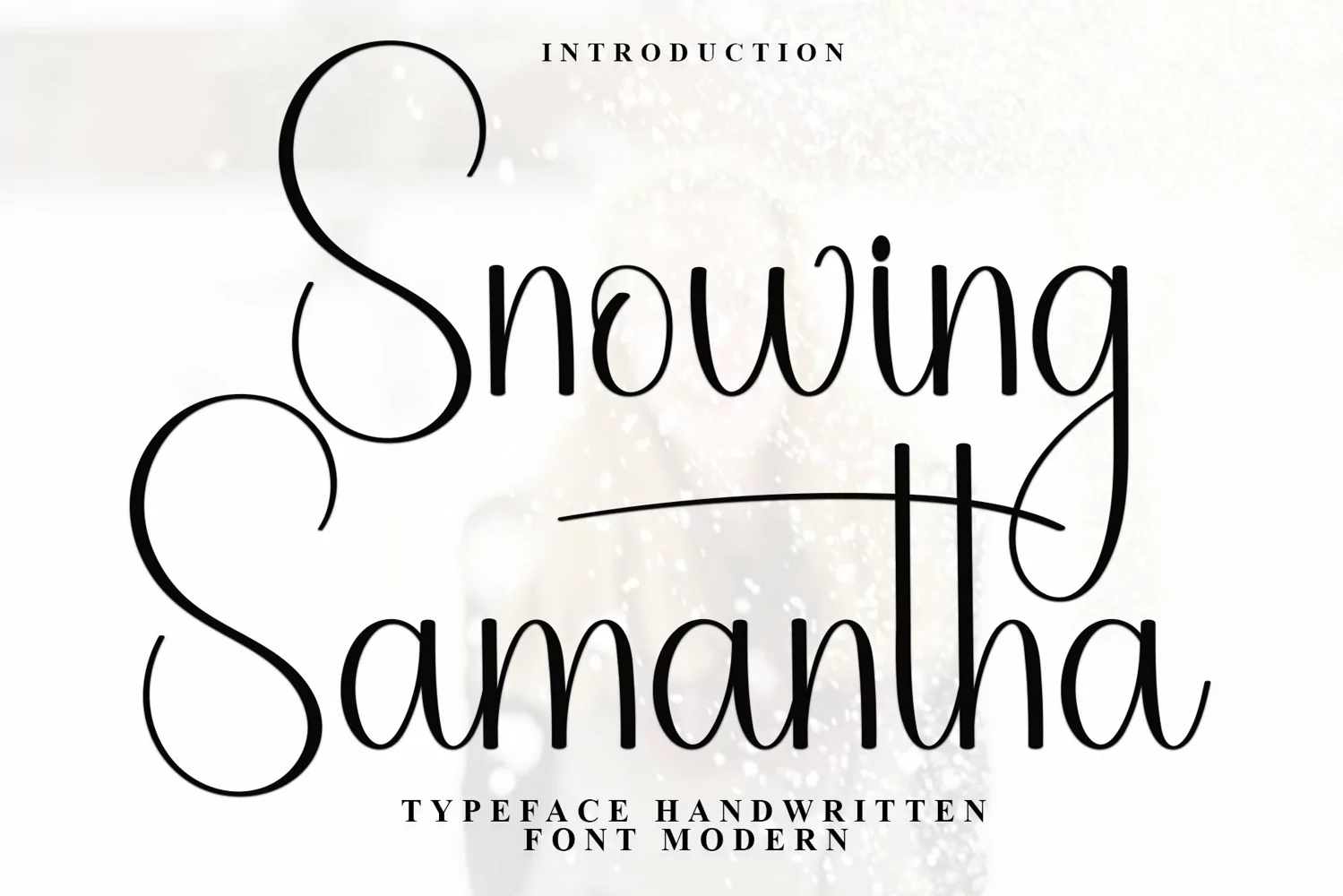
Snowing Samantha
Snowing Samantha is a beautiful and eye-catching font designed with a soft, unique touch. Its distinctive strokes give it a special character, making it meaningful and versatile for future use. With various characters, it’s perfect for design projects, crafts, and other creative works.